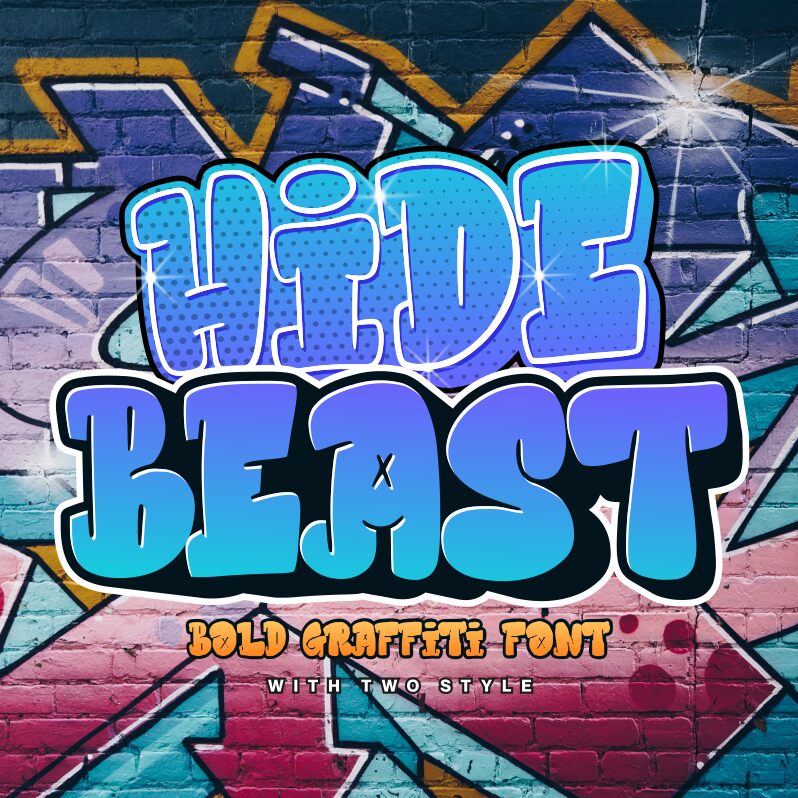
Hidebeast Blocky Demo
Hidebeast Blocky is the ultimate font for projects that need to make a statement. Created by Allouse Studio, this extra-bold graffiti typeface demands attention with its bold lines and semi-condensed width. Perfect for urban designs or edgy branding, Hidebeast Blocky is a versatile font that can be used for anything from logos to headlines to posters. Its blocky style adds an element of fun and excitement to any project, making it the go-to choice for those looking to stand out from the crowd. Don't blend in – choose Hidebeast Blocky for your next creative endeavor.